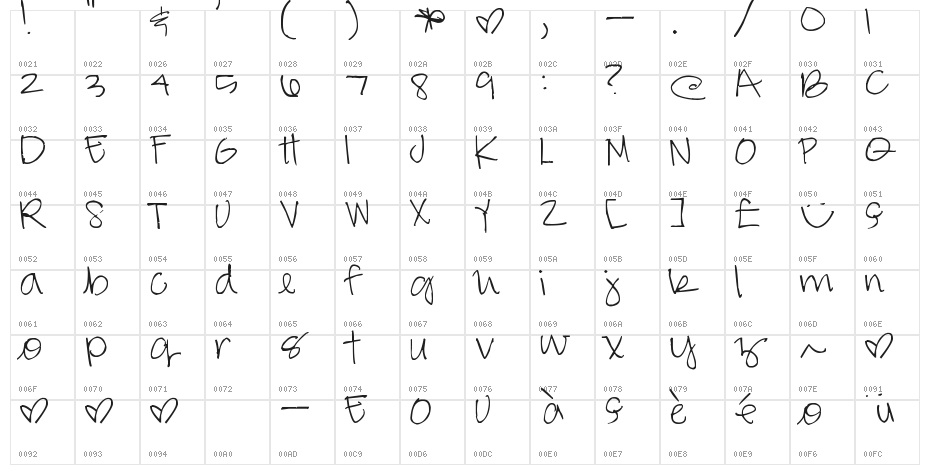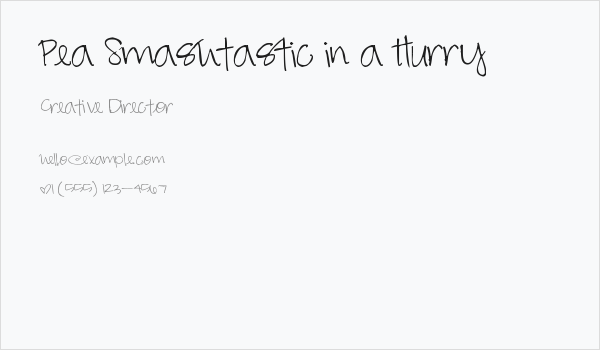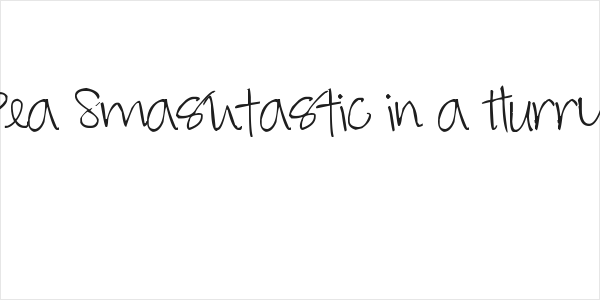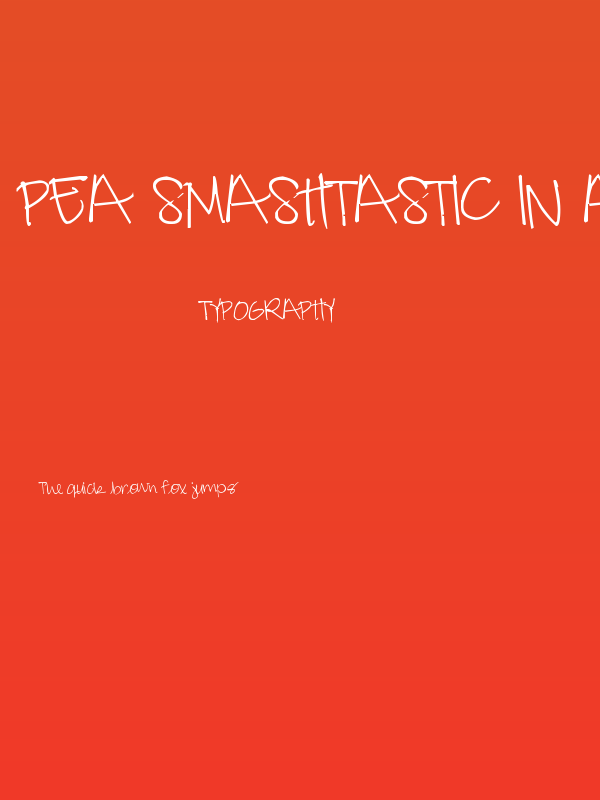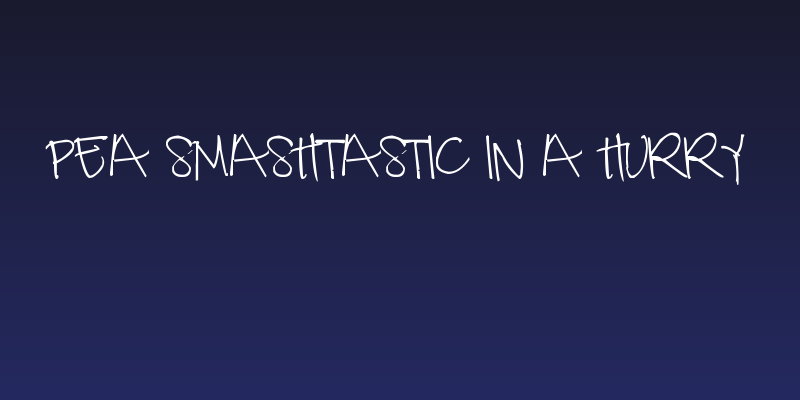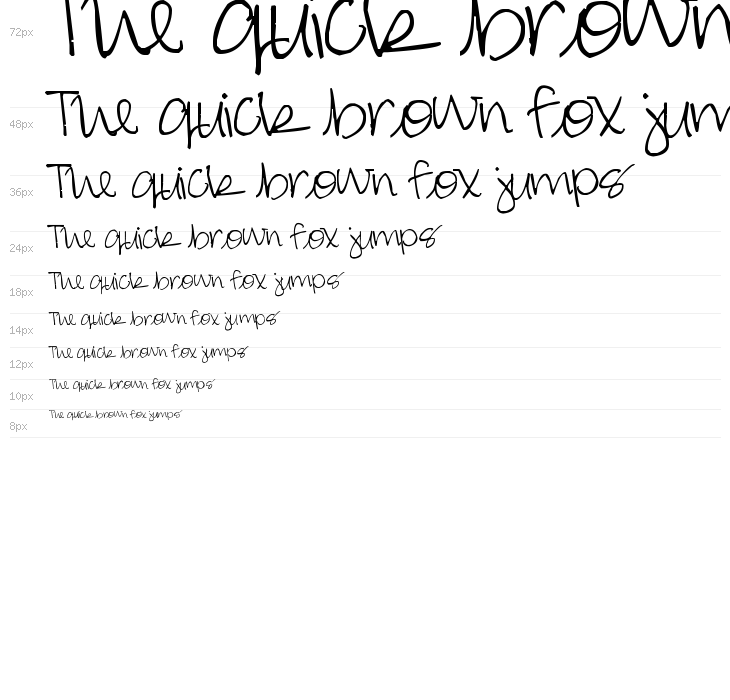
Pea Smashtastic in a Hurry Font
Pea Smashtastic in a Hurry Description
This playful and energetic font features a handwritten style with a casual, informal appearance. The letters are slightly irregular, giving it a personal and spontaneous feel. The strokes are uneven, with varying thickness, adding to its dynamic character. It includes both uppercase and lowercase letters, numbers, and a selection of special characters. The overall look is lively and expressive, making it suitable for projects that require a touch of personality and creativity.
| Use Case | Logos, Headlines, Informal Invitations |
| Proposed Projects | Ideal for greeting cards, children's book covers, playful branding, and social media graphics. |